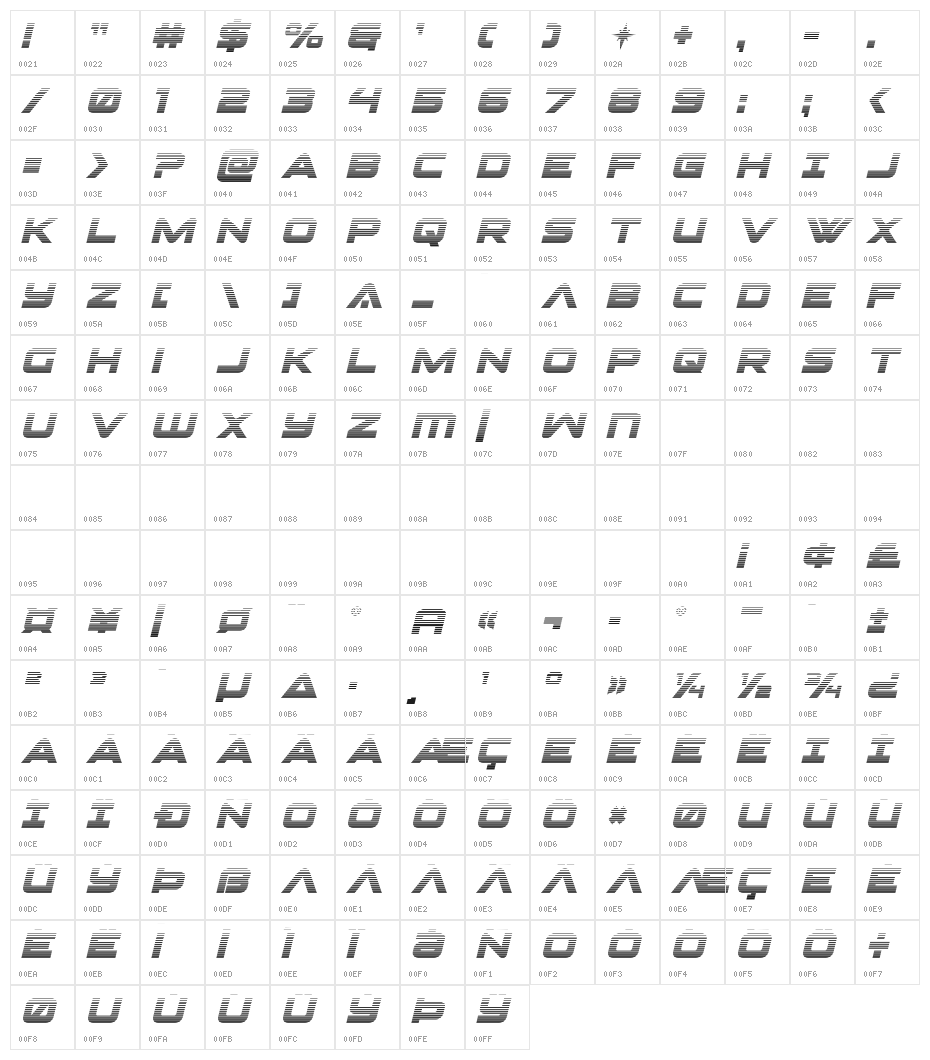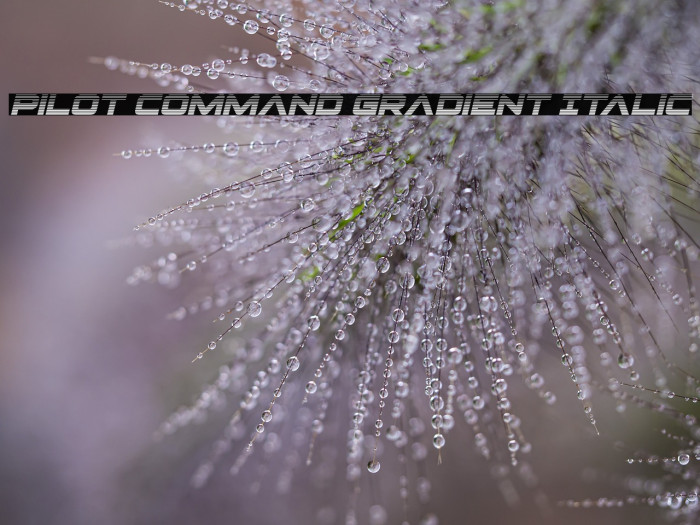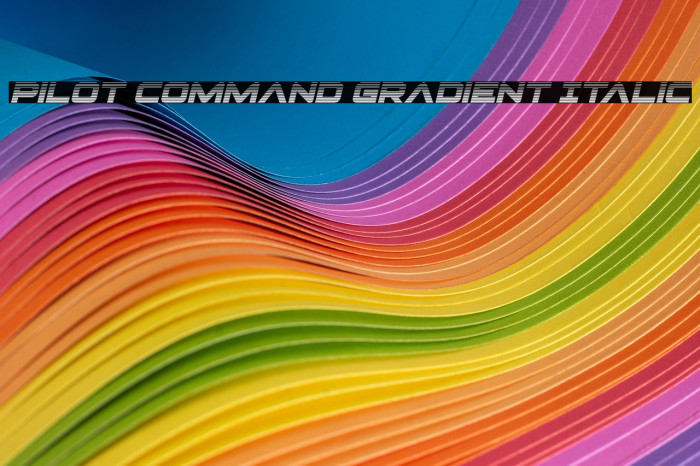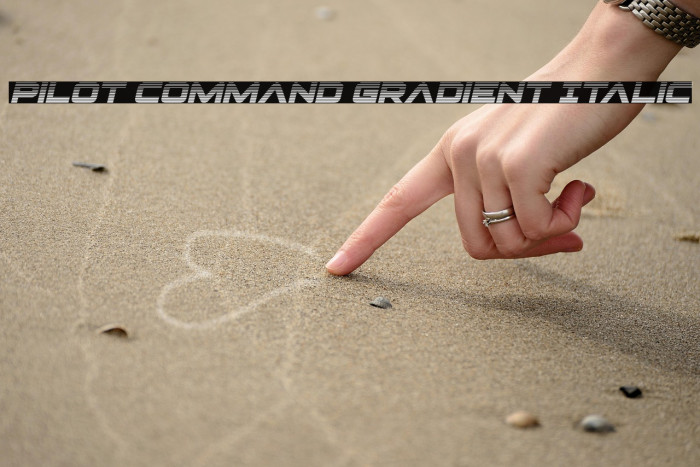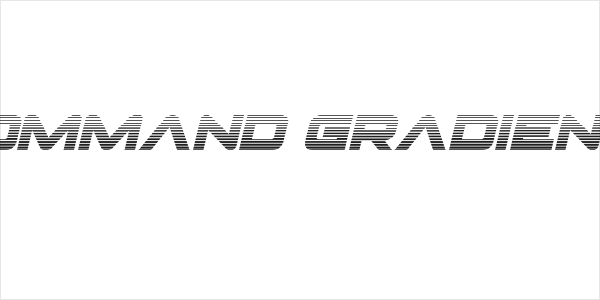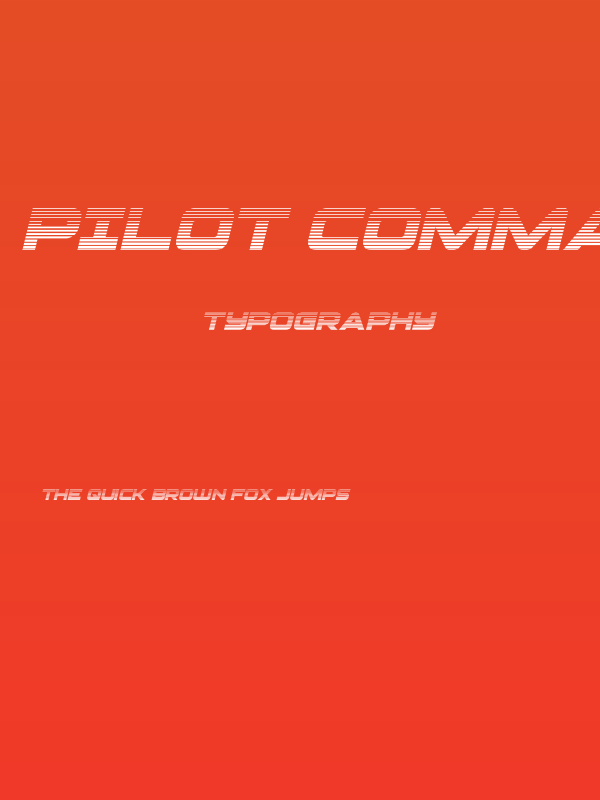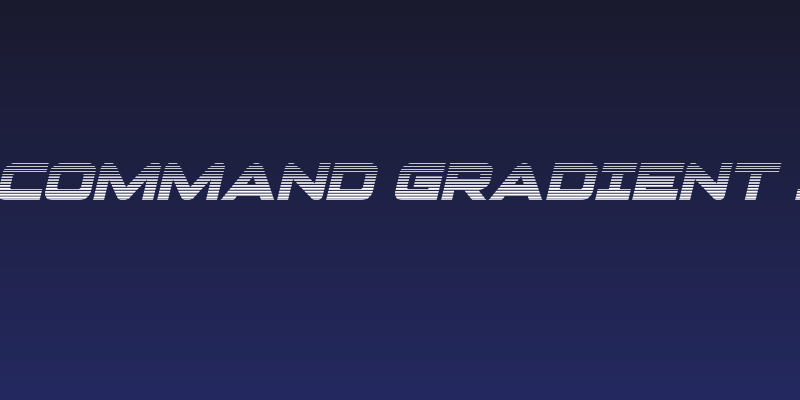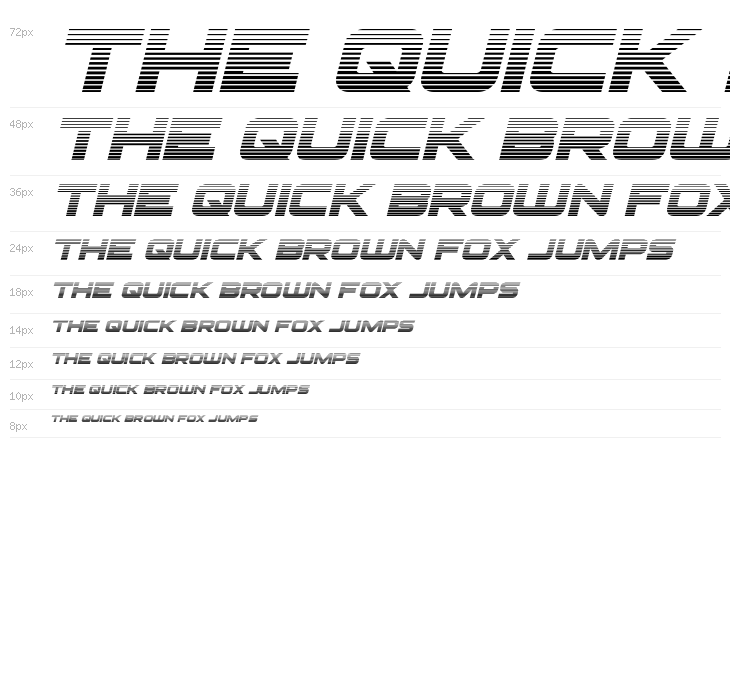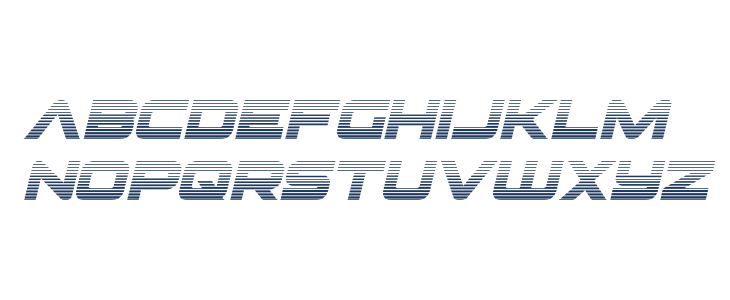
Pilot Command Gradient Italic Font
Pilot Command Gradient Italic Description
This font features a dynamic and futuristic design, characterized by its italicized and gradient-striped appearance. The letters are slanted, giving a sense of motion and speed, which is enhanced by the horizontal lines that create a gradient effect across each character. The uppercase and lowercase letters maintain a consistent style, with sharp angles and a sleek, modern look. The numerals and special characters follow the same design principles, ensuring uniformity across all glyphs. This font is ideal for projects that require a bold, eye-catching aesthetic with a modern twist.
| Proposed Projects | Ideal for sci-fi themed designs, technology branding, video game titles, and futuristic posters. |